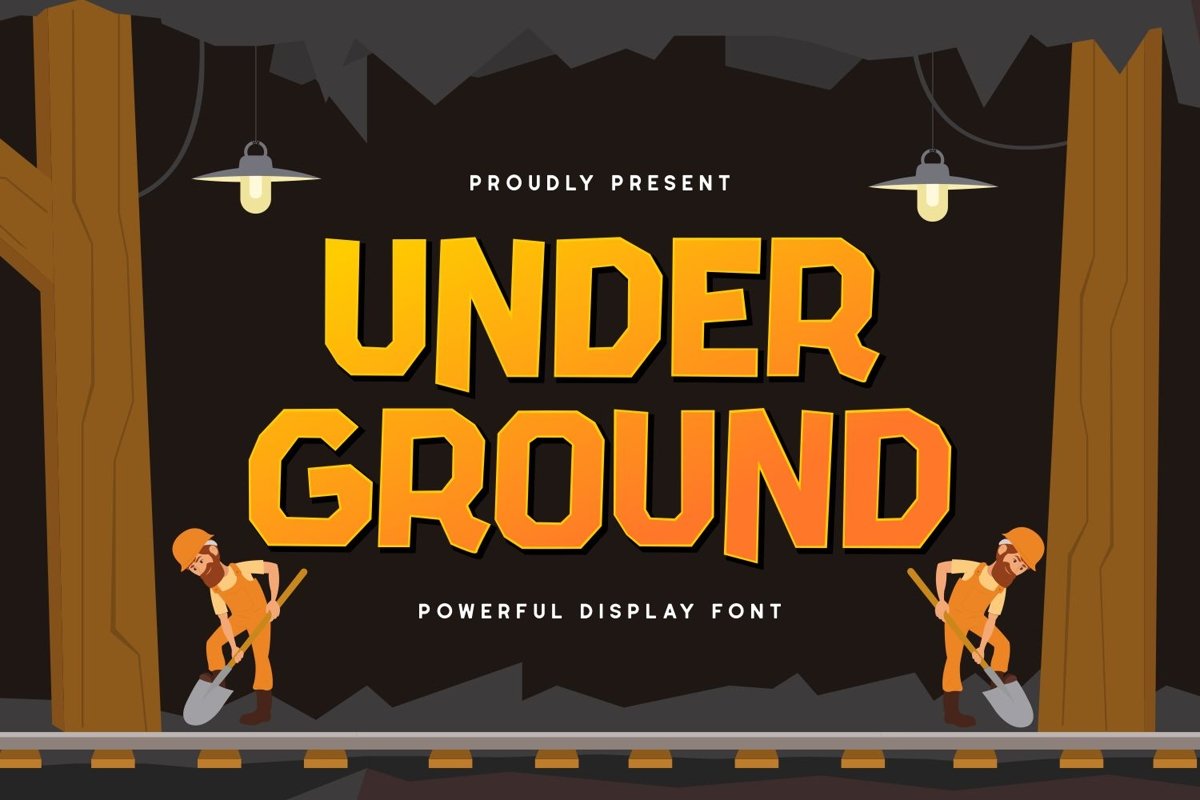
Under Ground is a powerful sans serif display typeface come with funny themes. It matches applies in some designs such as the logotype, brand, packaging, quotes, kids poster, shirt, children’s book and more custom design. The features uppercase, lowercase, numeral, punctuation & symbol, multilingual support, PUA encoded (fully accessible without additional design software).